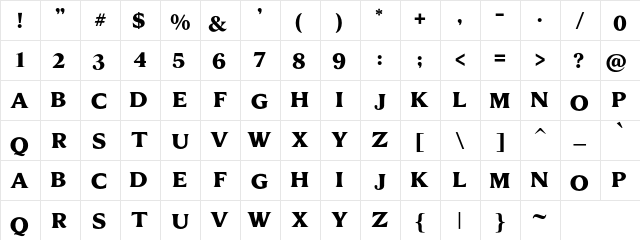
Boheld Free DEMO Regular
Design Context for Boheld Free DEMO Typeface
Boheld Free DEMO takes a measured approach to typography — its balanced proportions and neutral character make it a reliable workhorse for both digital and print work.